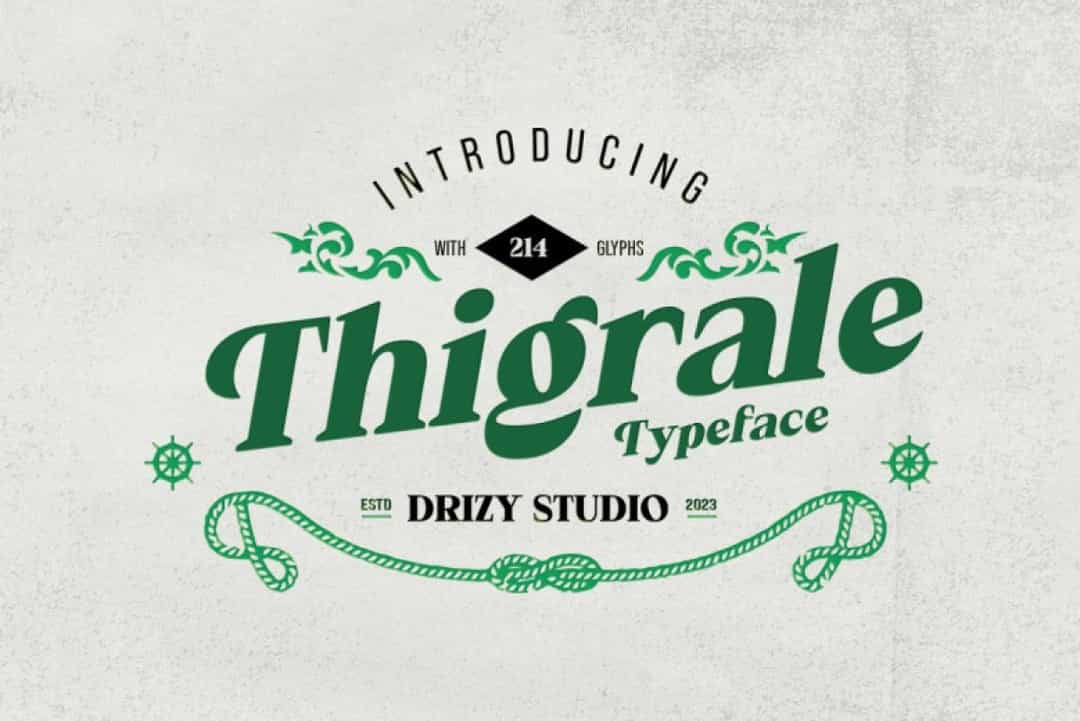
Thigrale vintage serif typefaces represent an elegant and timeless category of fonts from past eras of typography and printing, recalling authentically timeless appeal that reflect past art forms.